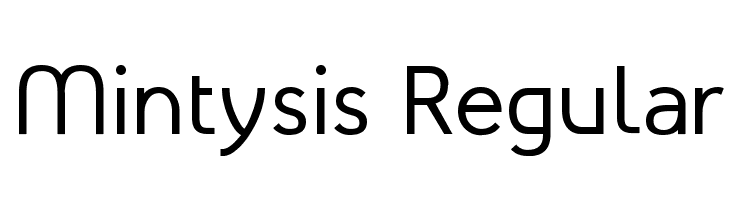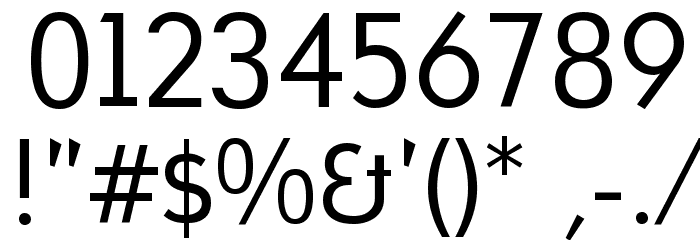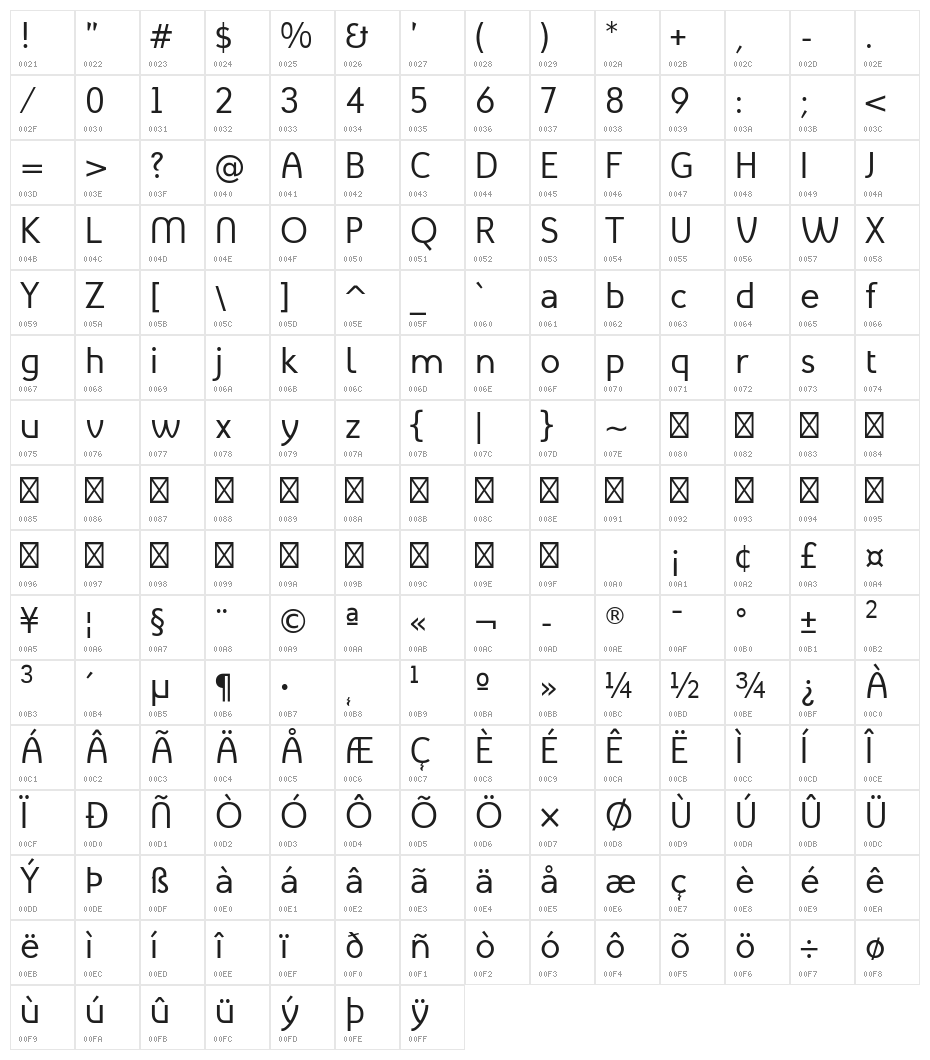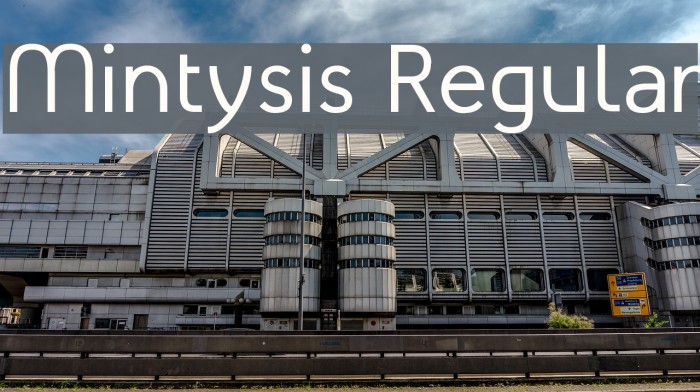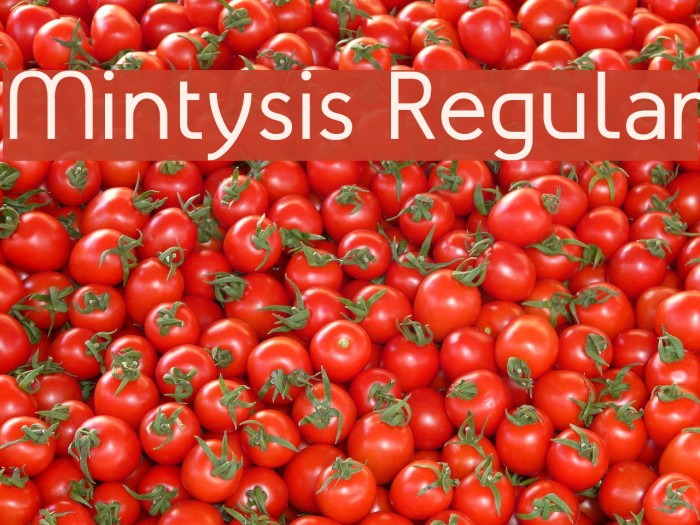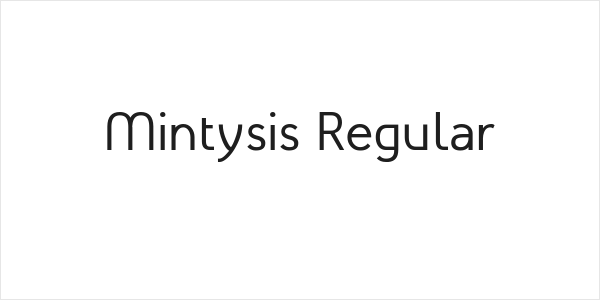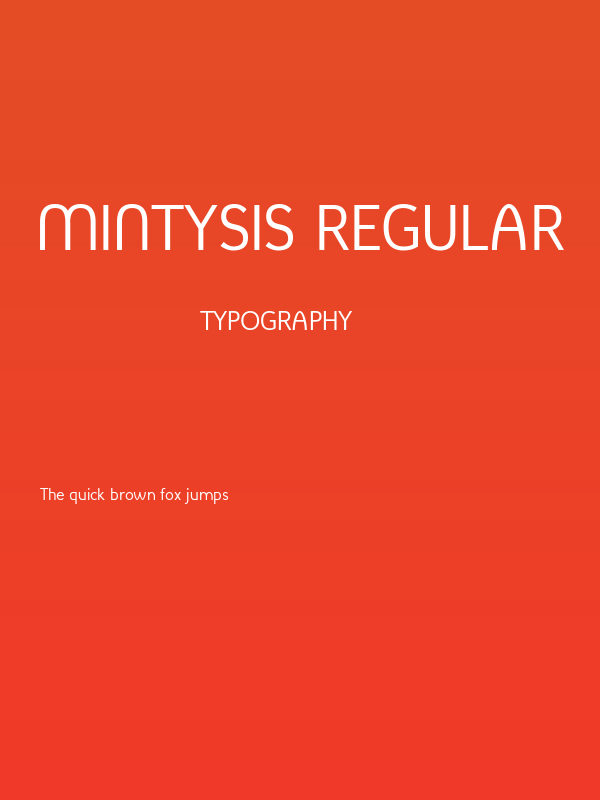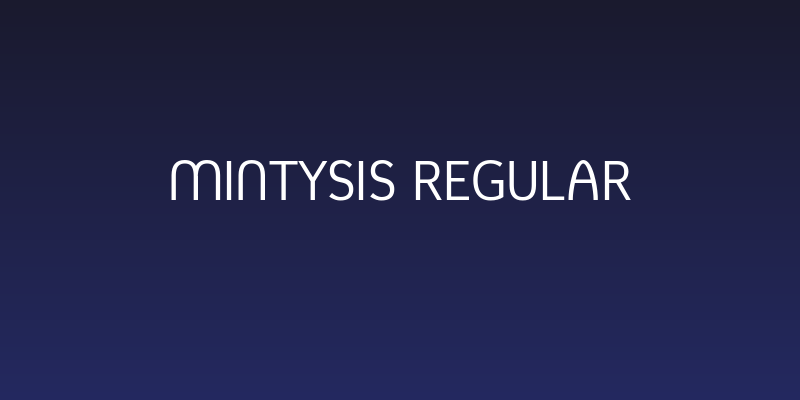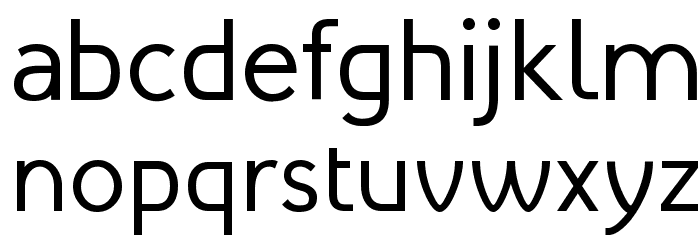
Mintysis Regular Font
Mintysis Regular Description
This font exhibits a clean and modern sans-serif style, characterized by its smooth curves and uniform stroke width. The uppercase letters are slightly taller than average, providing a sense of elegance and readability. The lowercase letters maintain a consistent height, contributing to a harmonious appearance. The numerals are clear and distinct, ensuring legibility in various contexts. Special characters are well-designed, complementing the overall aesthetic. This font is versatile, suitable for both digital and print media, and can be used effectively in a wide range of design projects.
| Proposed Projects | Ideal for branding, web design, advertising, and editorial projects. |